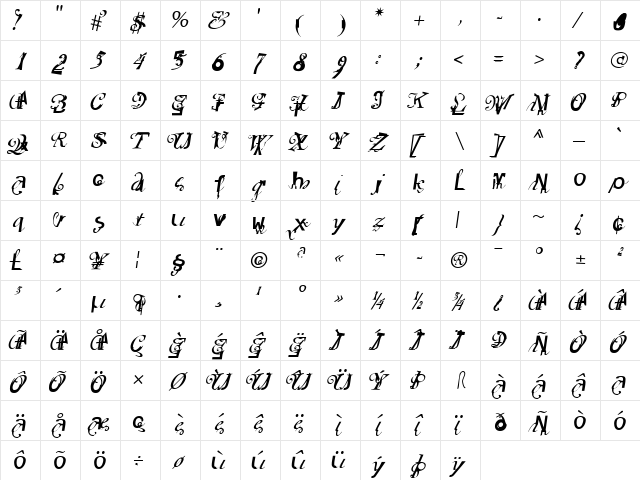
BlueEyeShadow Medium
| Foundry | Designed by Elliott Earls. The Apollo Program |
Design Context for BlueEyeShadow Typeface
BlueEyeShadow is built around its visual character rather than neutral utility — its distinctive forms are designed to make an impression at display sizes.